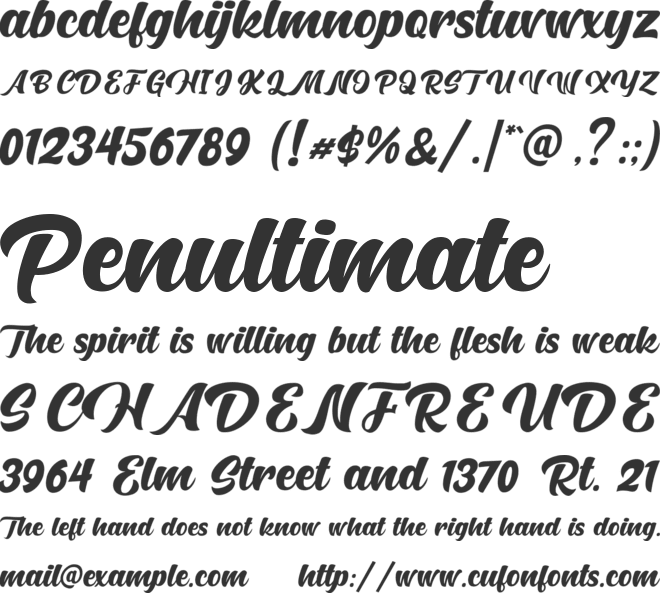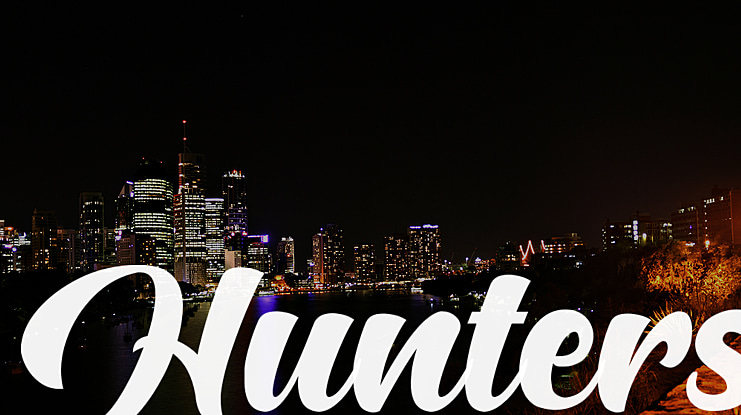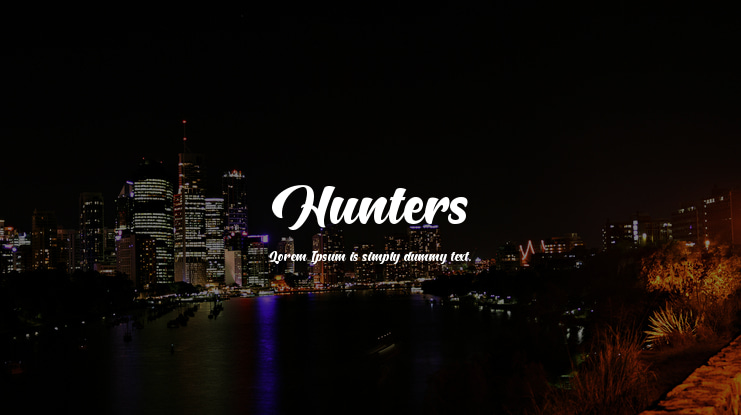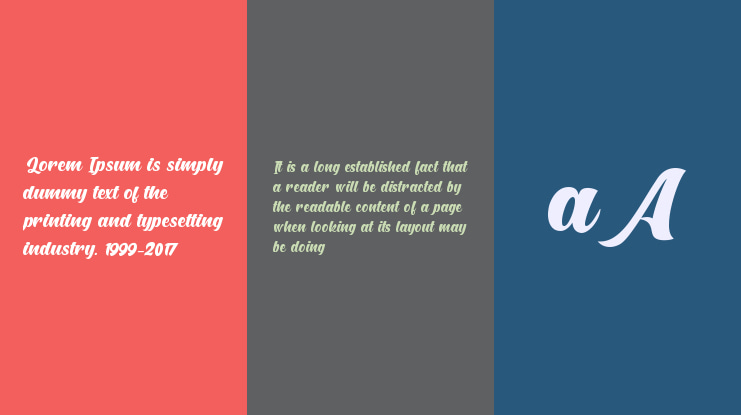
Hunters Font
Hunters Script is Modern bold script. Hunters is a logotype font with smooth curves so this font is great for Branding, Logo Design, Lettering,Logotype, Clothing, Poster, magazine and other design project